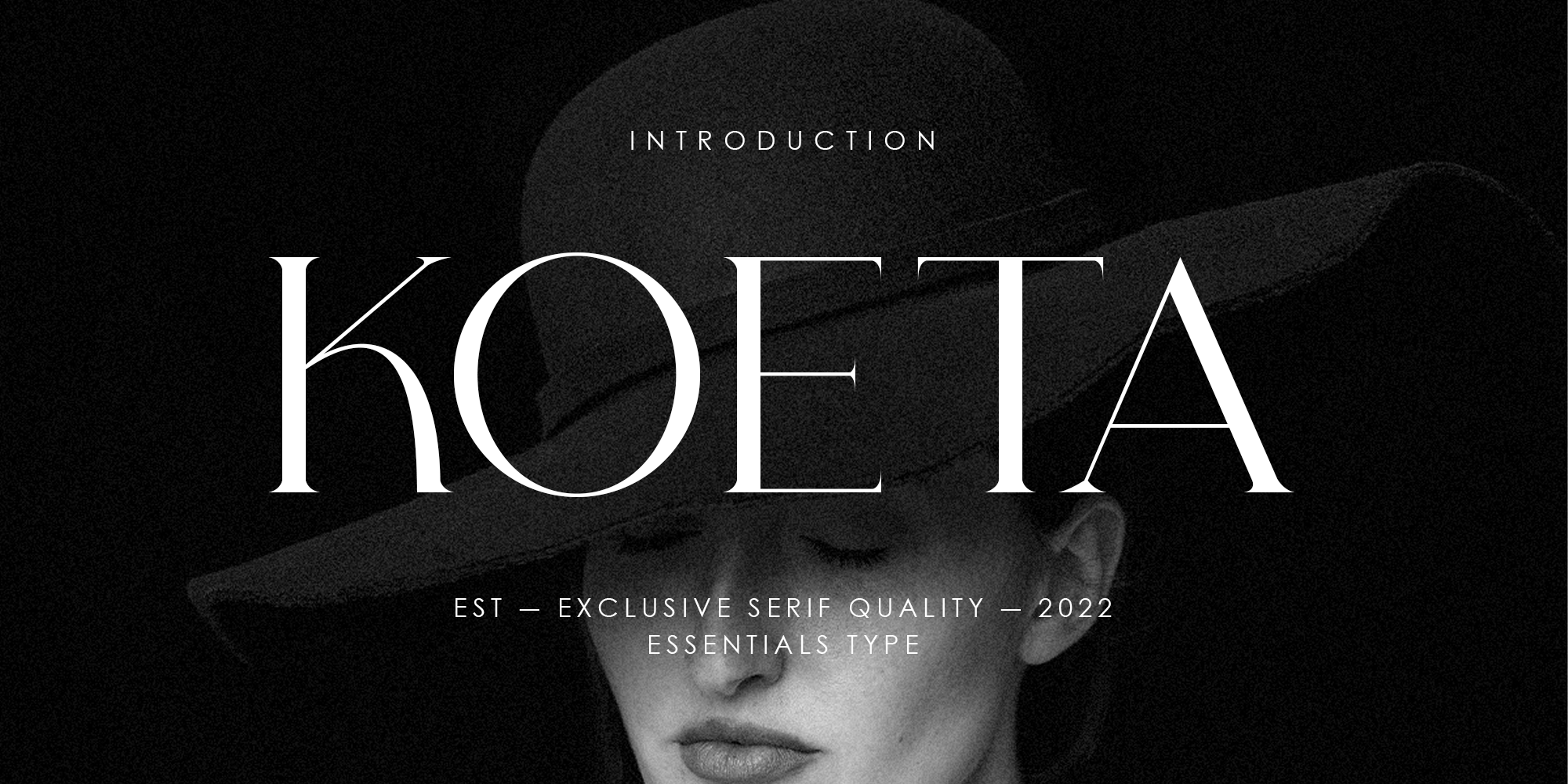
Koeta Font is perfect for modern tech branding, minimalist website designs, contemporary app interfaces, corporate identity systems, editorial publications, clean poster designs, architectural presentations, and sleek product packaging.
What makes Koeta Font exciting is its masterful blend of geometric precision and humanist warmth. This exceptional typeface delivers crystal-clear readability while maintaining distinctive character that sets brands apart in competitive markets. The font's carefully balanced proportions and subtle design details create a sophisticated visual presence that communicates professionalism and innovation simultaneously.
Koeta Font family includes Thin, Light, Regular, Medium, Bold, and Black weights, along with corresponding italic styles and extended character sets. Each weight maintains the font's clean aesthetic while providing comprehensive typographic flexibility for complex design systems and multilingual applications.
Professional designers consistently choose Koeta Font Free Download for projects requiring contemporary elegance and exceptional functionality. This remarkable typeface has earned recognition among leading design studios and Fortune 500 companies worldwide. The font's versatility makes it equally effective for digital interfaces, print materials, and comprehensive branding campaigns that demand consistent visual excellence.
The design philosophy behind Koeta Font emphasizes clarity and contemporary sophistication. Its letterforms feature optimized spacing and carefully refined details that ensure excellent performance across all media formats. The font's neutral yet distinctive character allows brands to establish strong visual identities without overwhelming their core messaging.
Creative agencies working with technology companies and modern brands frequently select Koeta Font for clients requiring cutting-edge typography solutions. The font's technical precision and aesthetic appeal make it ideal for startups, established corporations, and innovative organizations seeking to communicate forward-thinking values through sophisticated design.
The technical craftsmanship of Koeta Font demonstrates advanced typography engineering. Extensive OpenType features support professional workflows, while optimized hinting ensures consistent rendering across digital platforms. The font's comprehensive language support and accessibility features make it suitable for global brands requiring inclusive design solutions that perform flawlessly across diverse markets and applications.